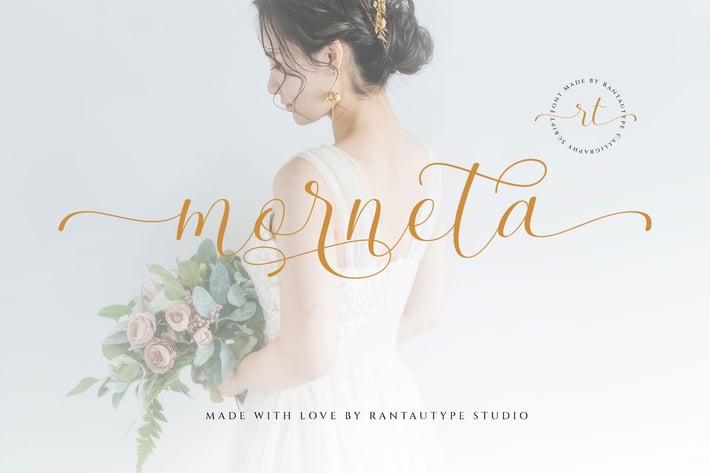
Morneta Calligraphy Script Font
Morneta is calligraphy script font inspire by wedding moment visual design. Morneta come with delicate curves and refined details create a sense of sophistication and femininity.
Morneta is a beautiful choice for any creative endeavor, chic, lifestyle design such as logos, title, watermark on photography, cover, branding, display and magazine, wedding event, quotes, album cover, business card, corporate, business project and many other design project with script taste.
Alternate and Ligature